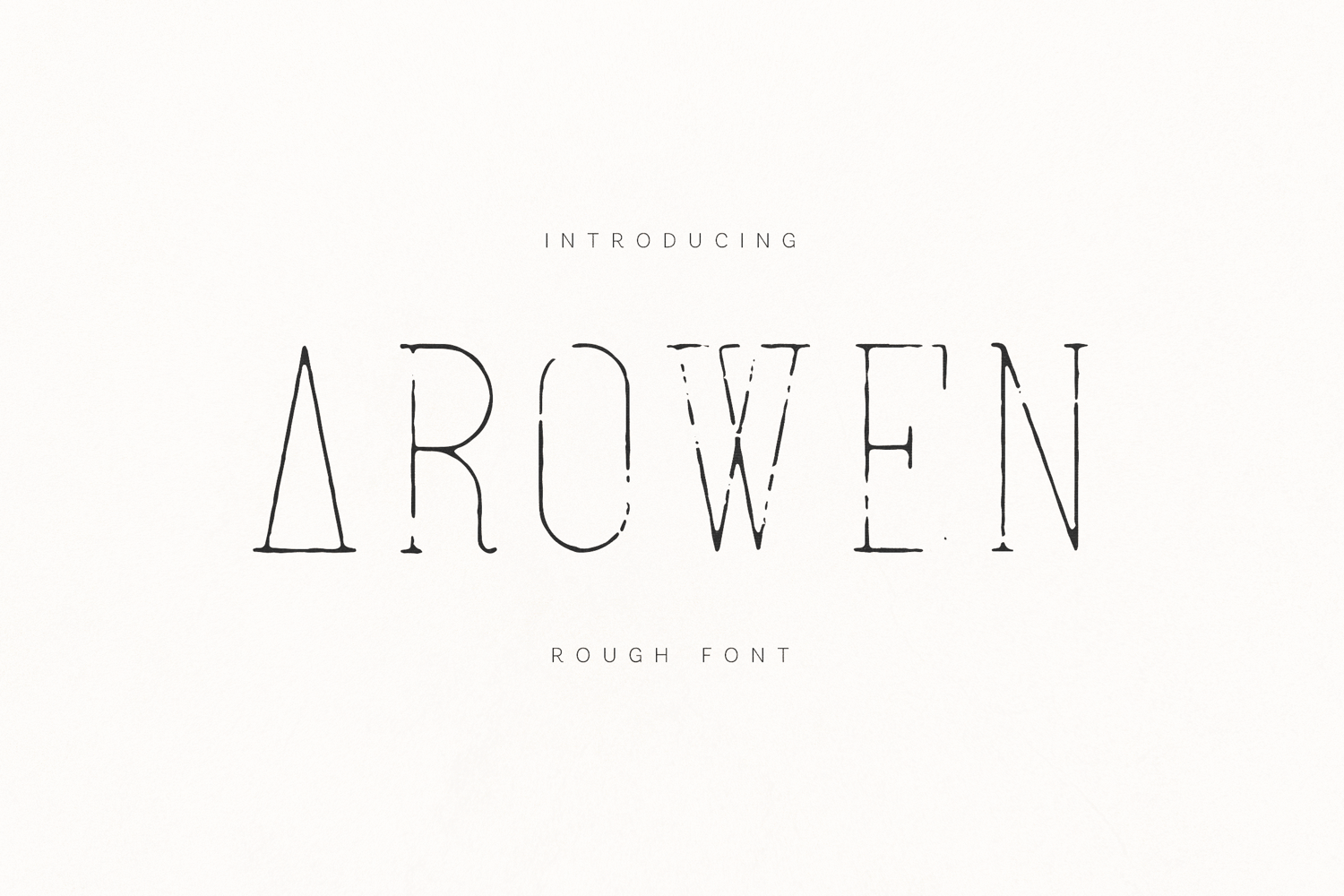
Arowen Rough Vintage Serif Font
Arowen is a distinctive rough serif font inspired by aged letterpress printing, worn ink textures, and timeless editorial typography. Featuring elegant proportions combined with intentionally distressed details, it creates a unique balance between sophistication and imperfection. Perfect for branding, book covers, packaging, posters, fashion editorials, restaurant identities, invitations, logos, and artistic projects that need character and authenticity. Arowen brings a handcrafted vintage atmosphere while maintaining excellent readability across both display and headline applications. The font includes uppercase and lowercase characters, numerals, punctuation, multilingual language support, and comes in OTF format for professional creative work.